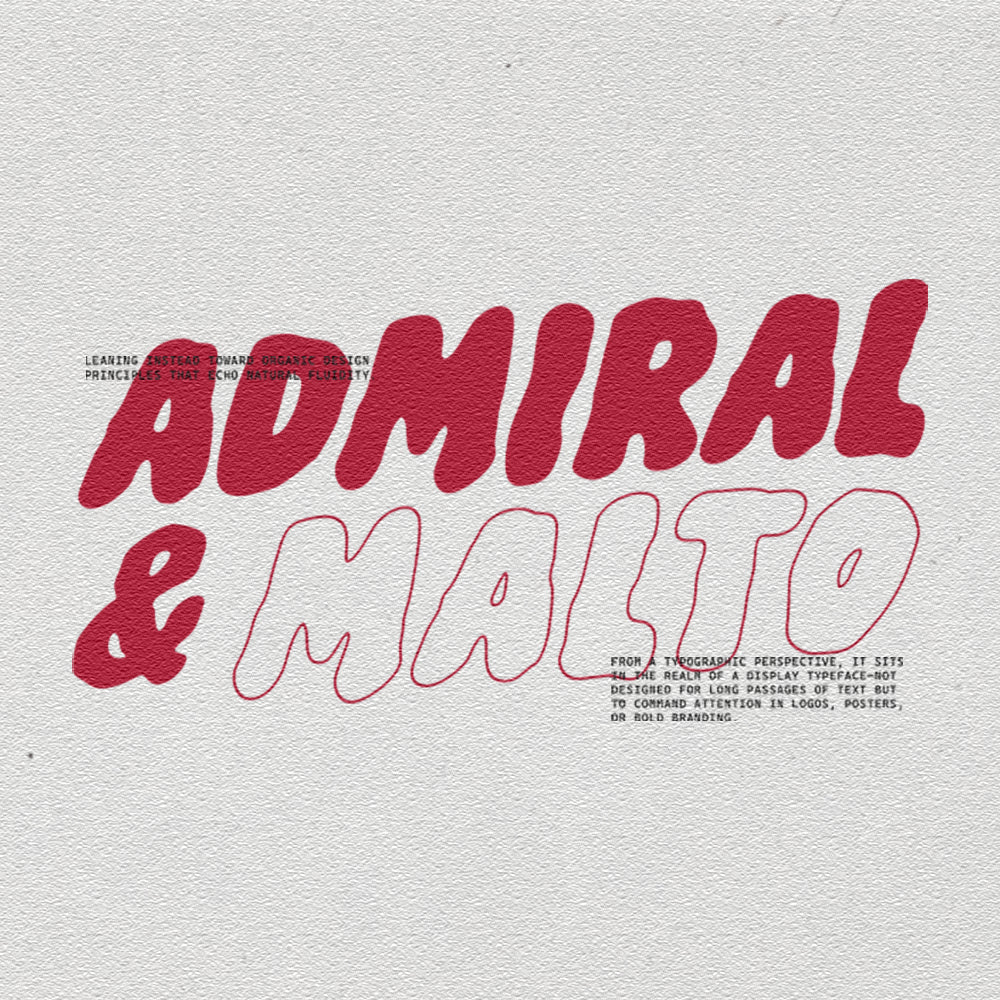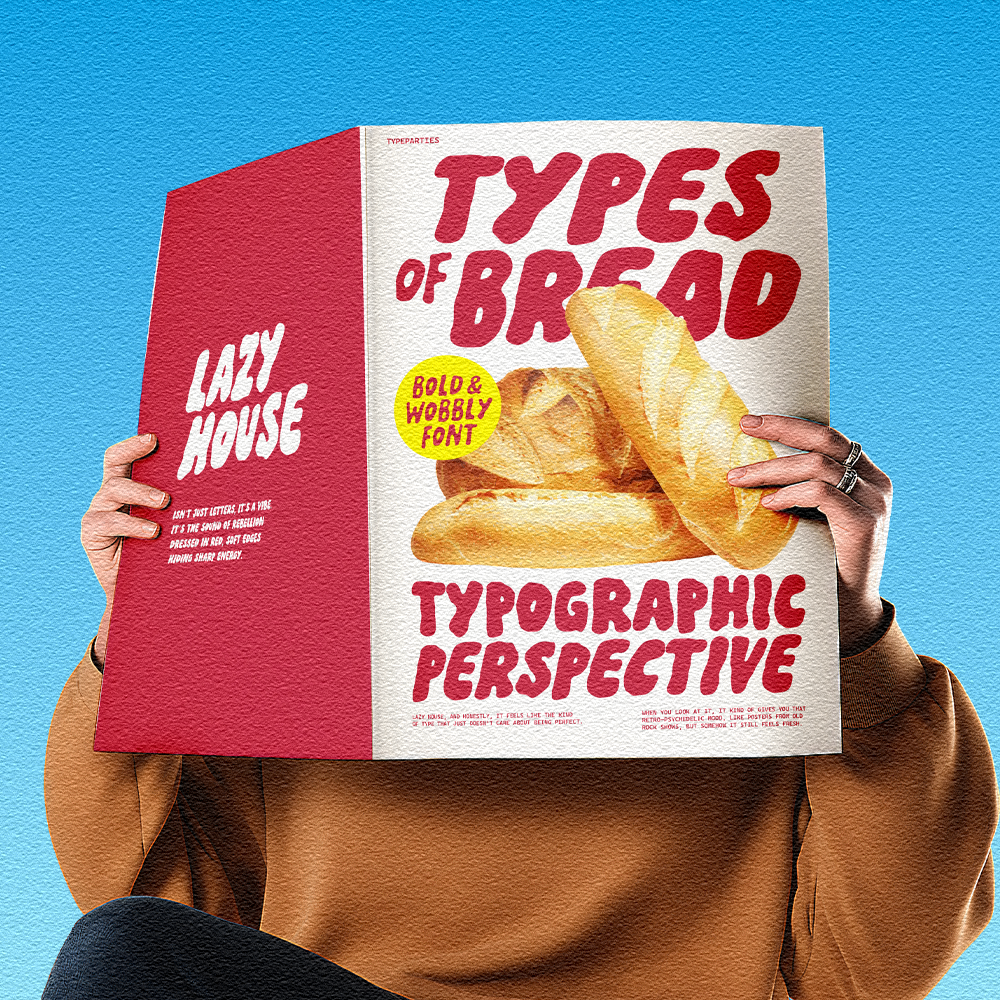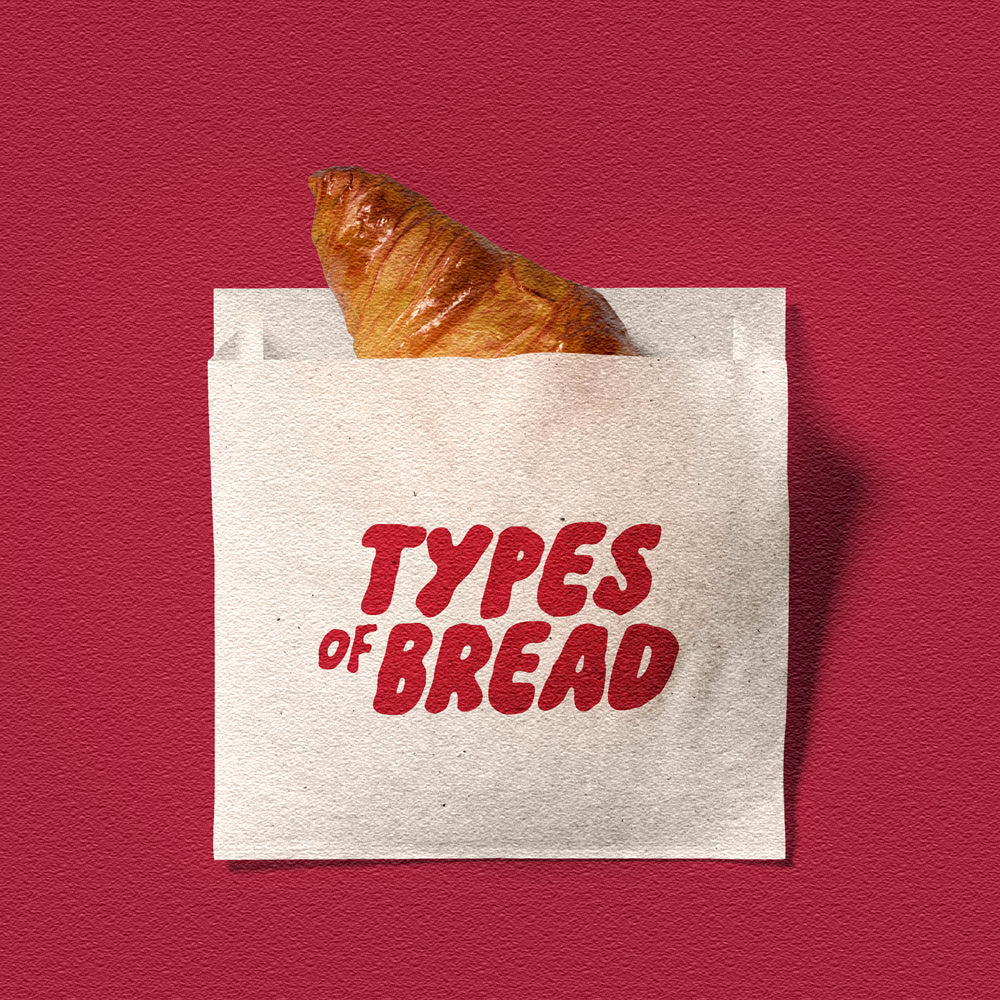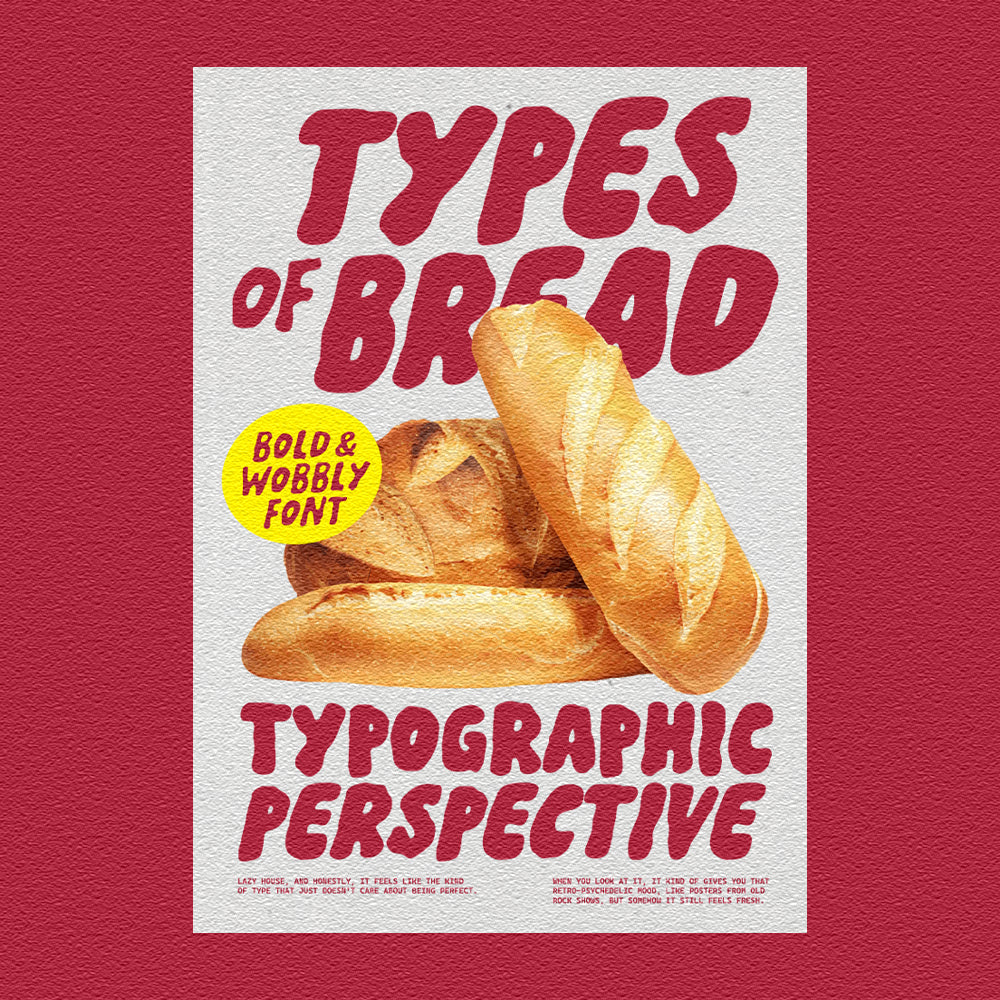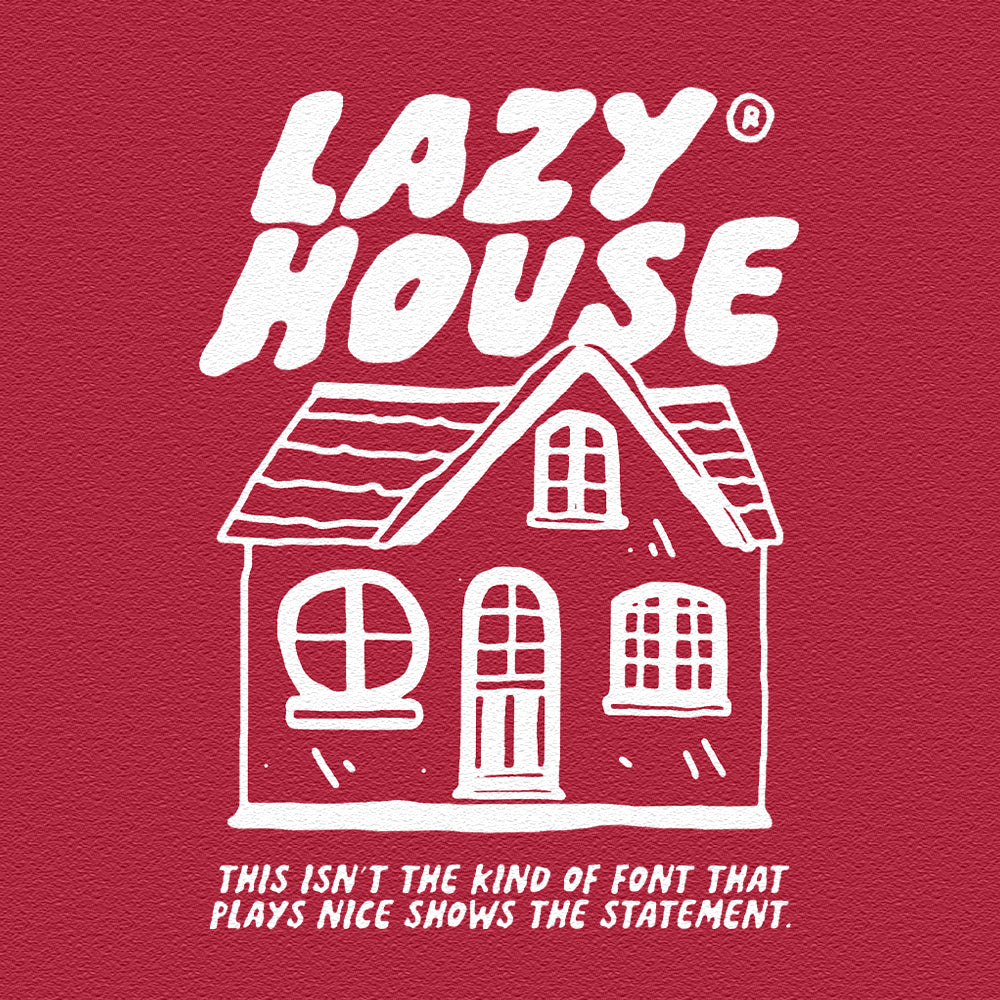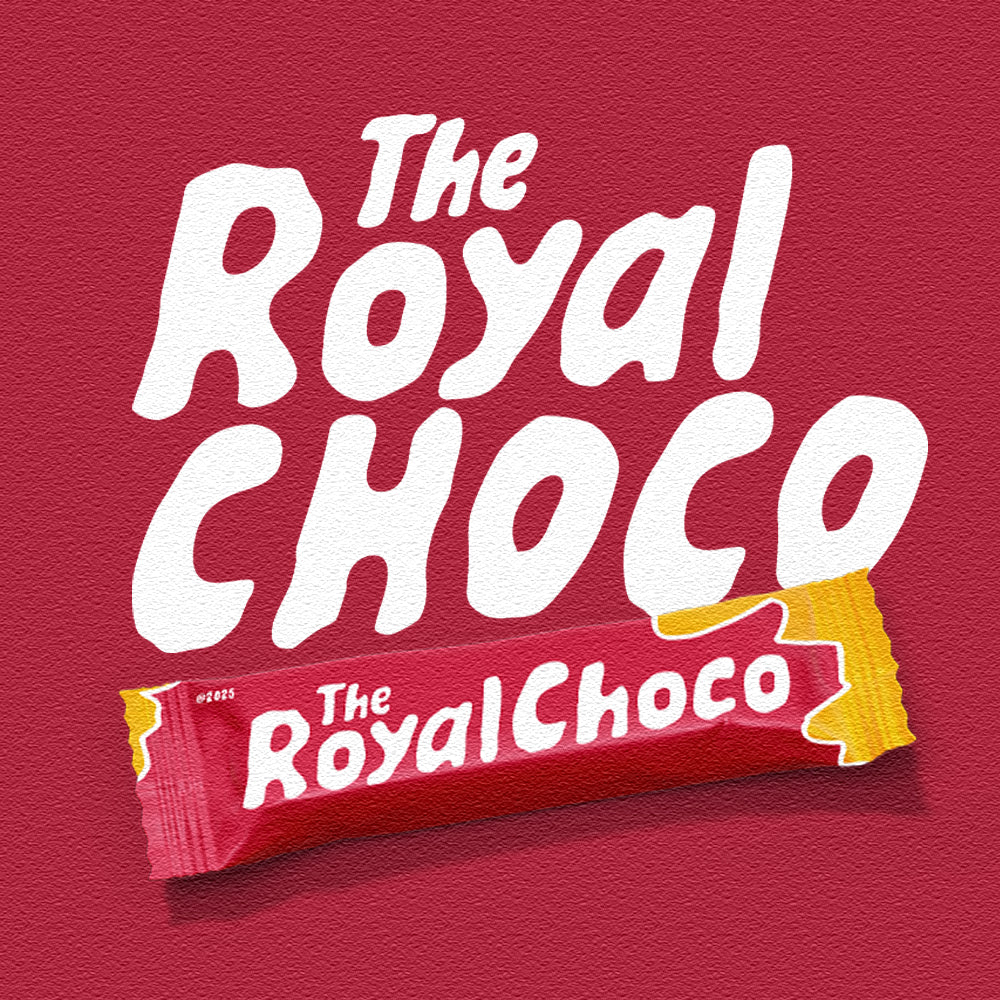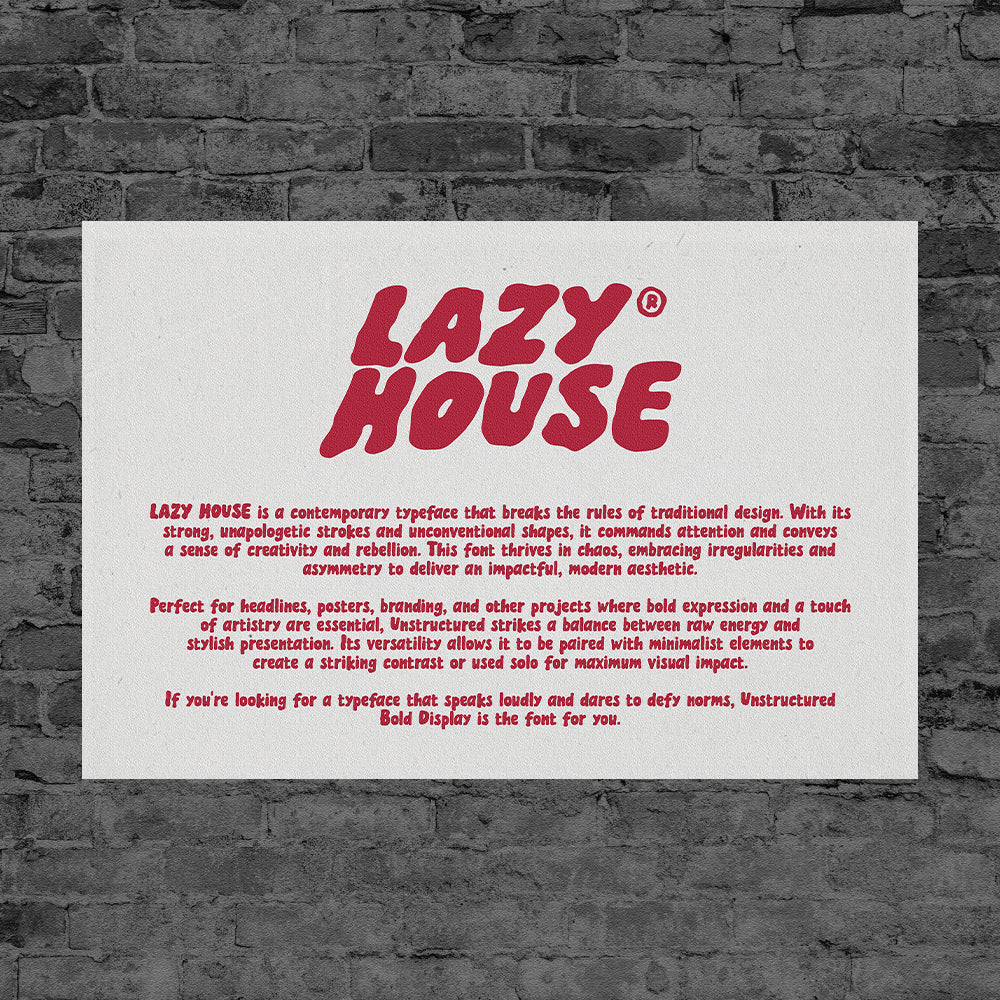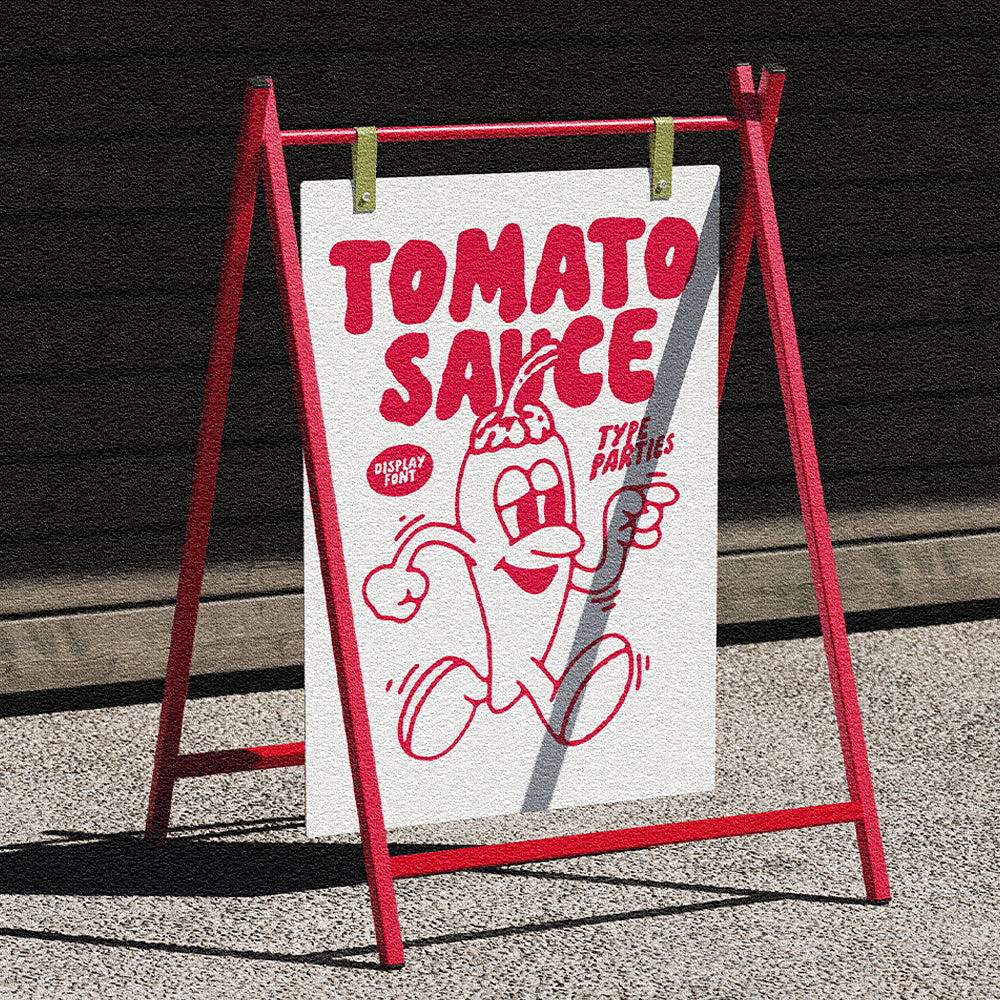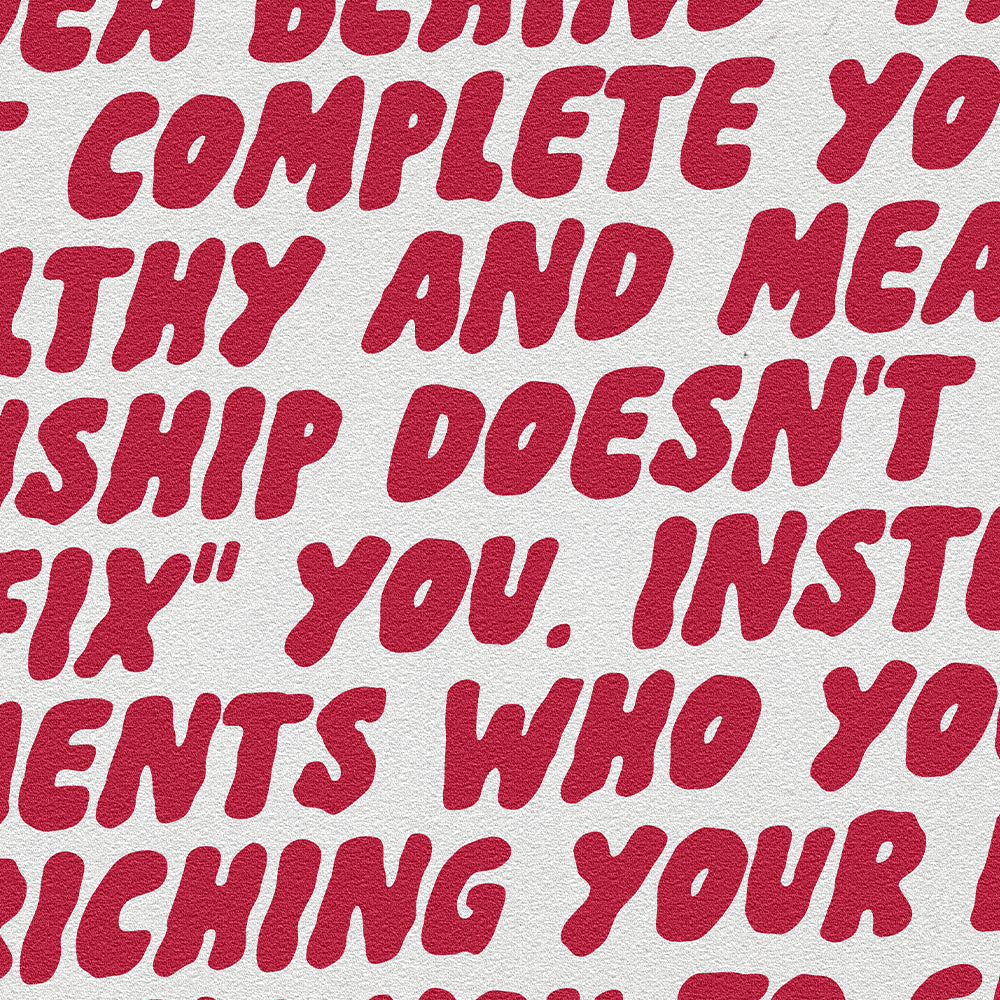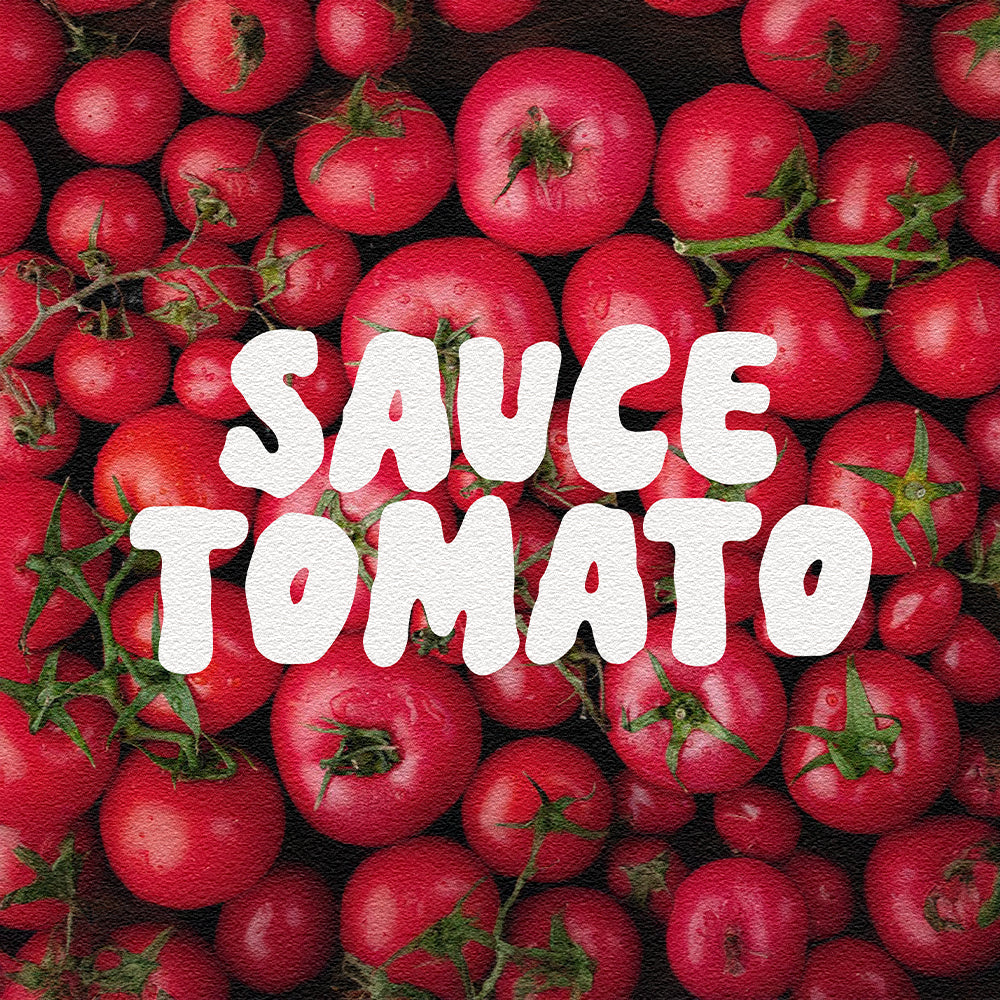
LazyHouse - Bold Display Font
LazyHouse is a bold display font characterized by its liquid-like form and irregular contours, creating a dynamic and playful appearance. Designed for attention-grabbing applications, it features exaggerated, organic shapes that deviate from traditional geometric fonts.